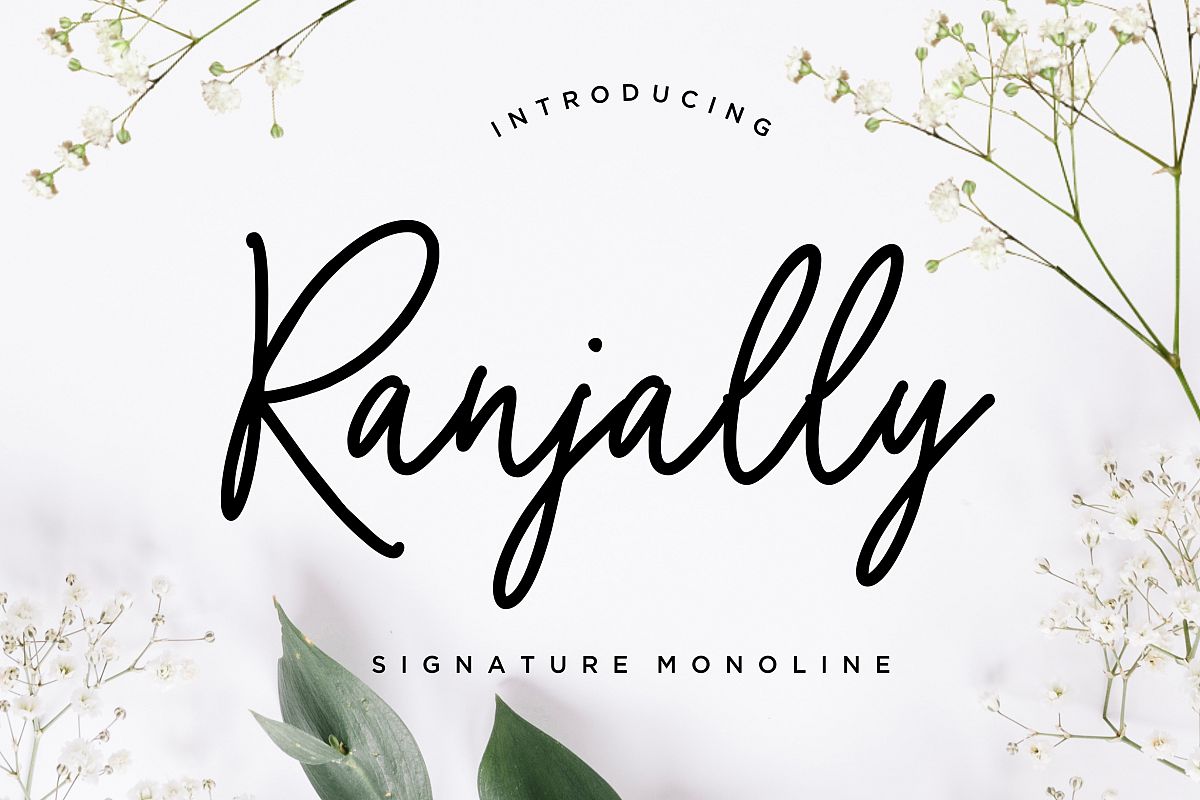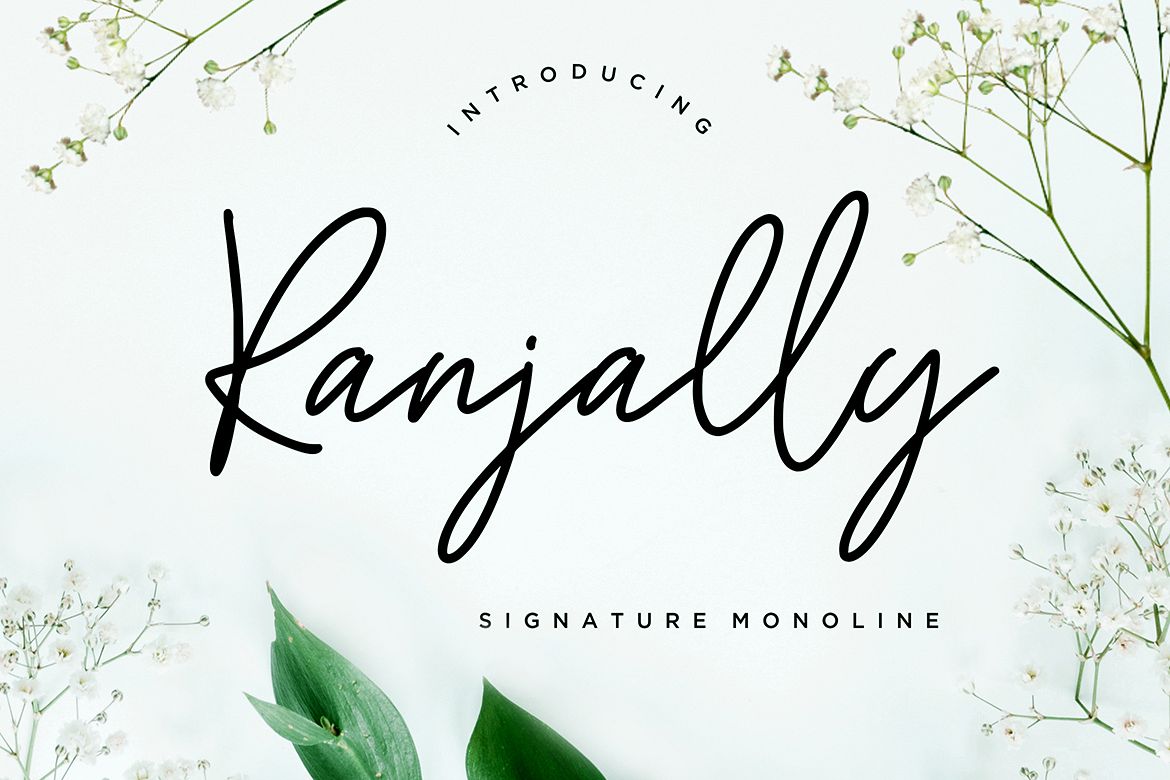
Ranjally Monoline Signature
Ranjally
Ranjally is a handwritten signature font with monoline style looks elegant, luxury and classy.
Ranjally is perfect for branding projects, logo, wedding designs, social media posts, advertisements, product packaging, product designs, label, photography, watermark, invitation, stationery and any projects that need handwriting taste.